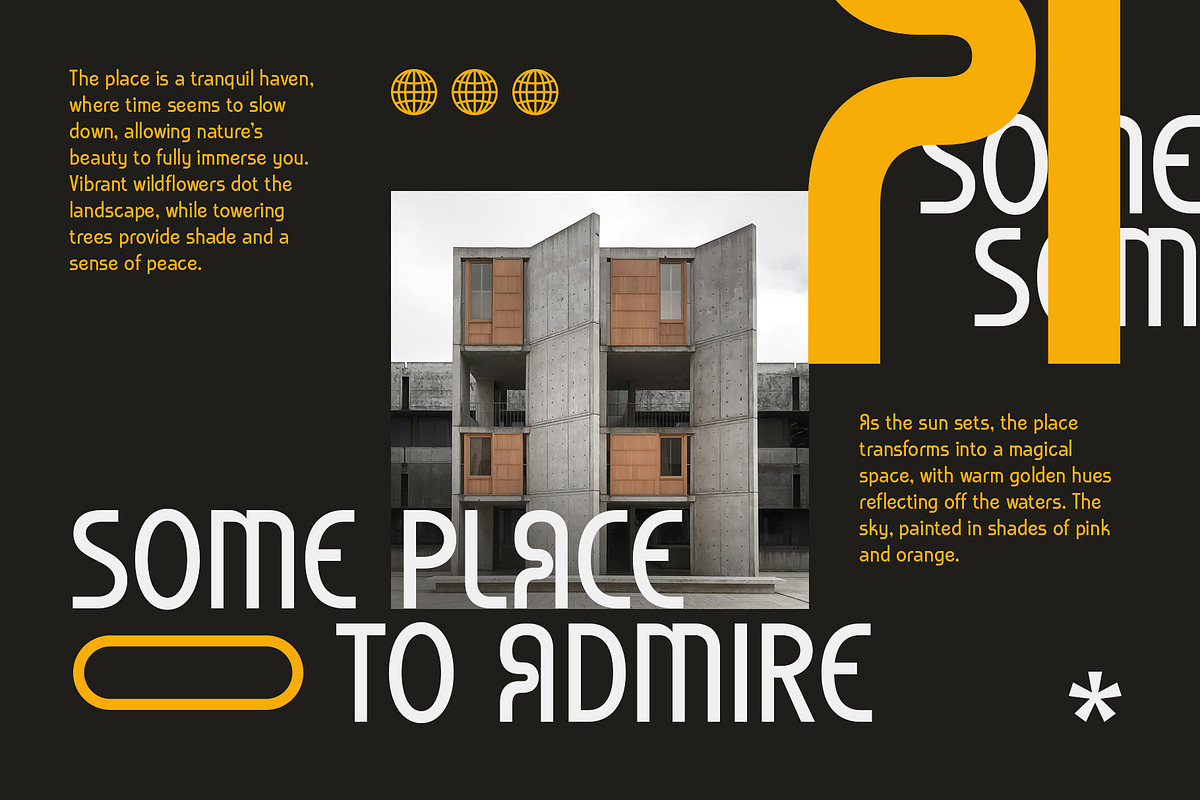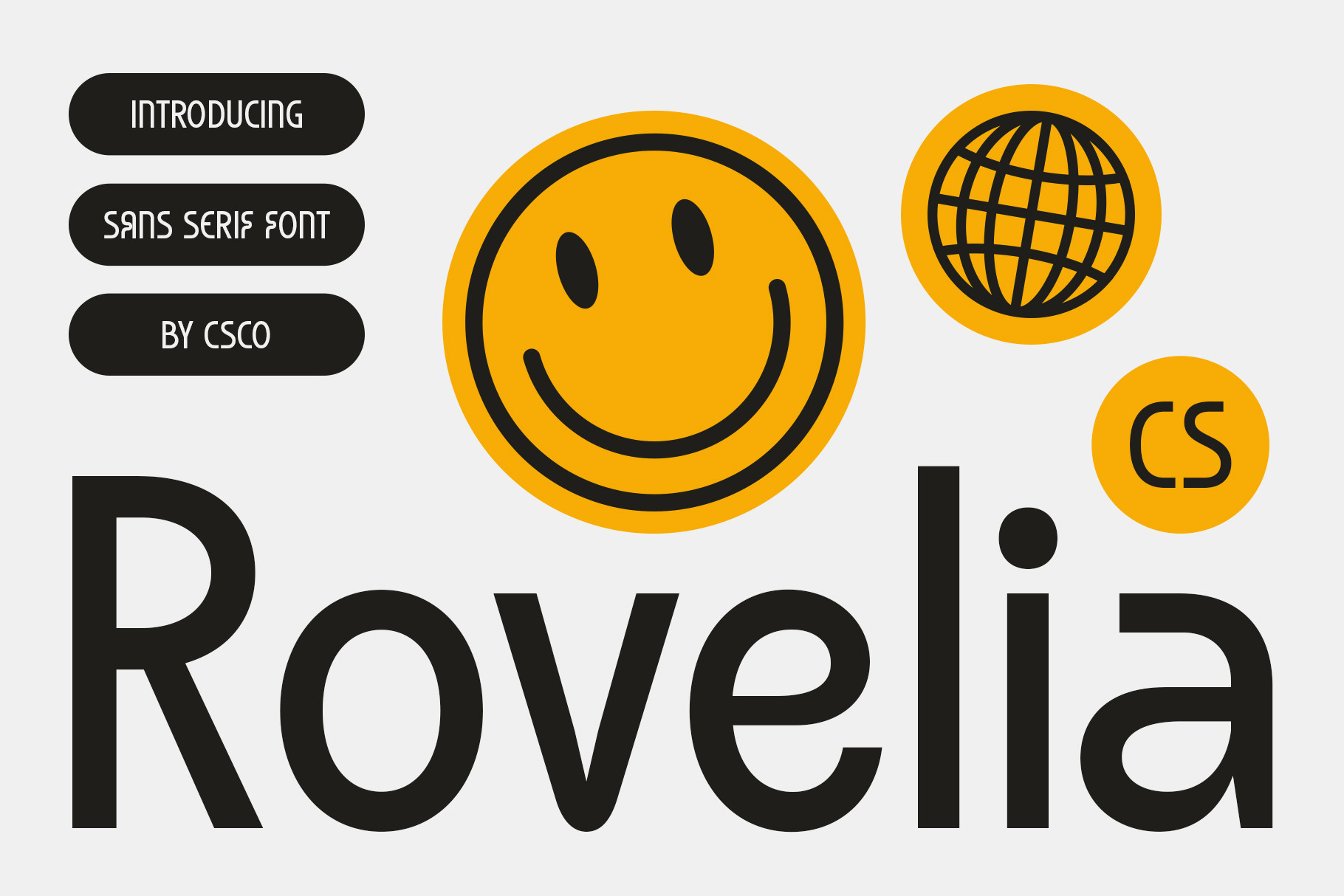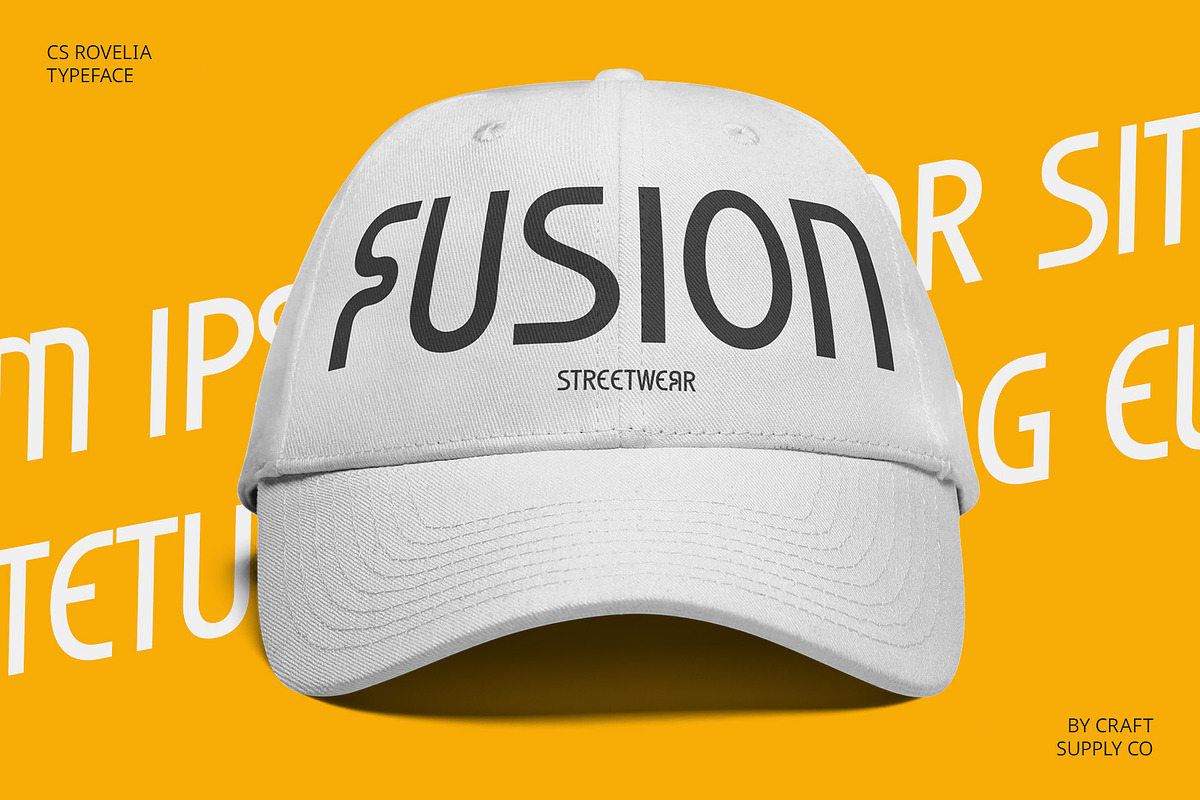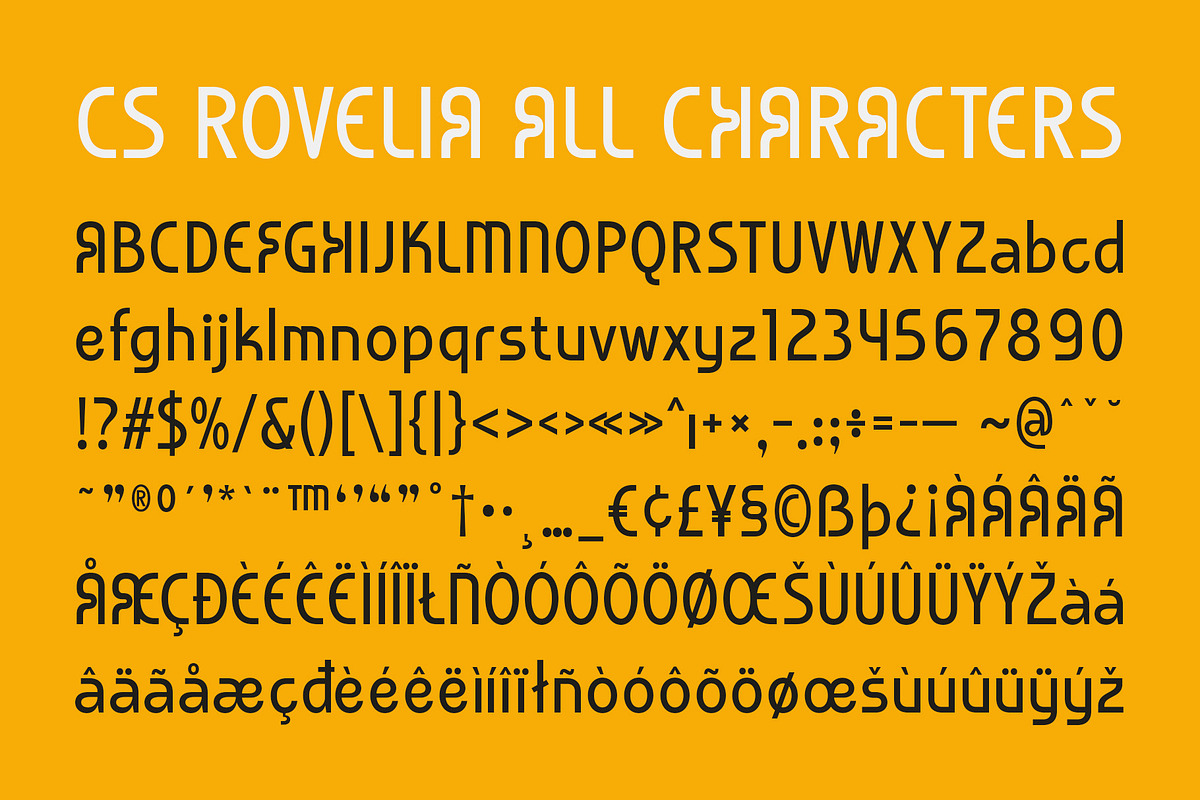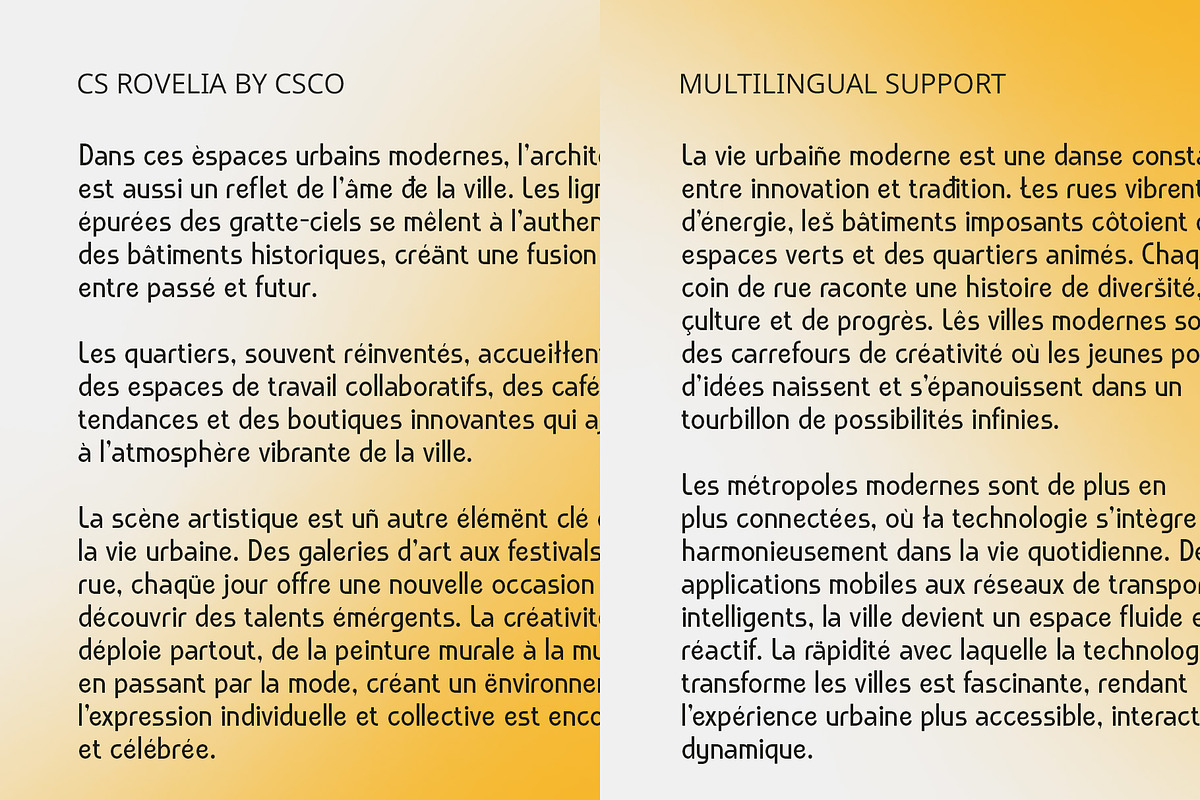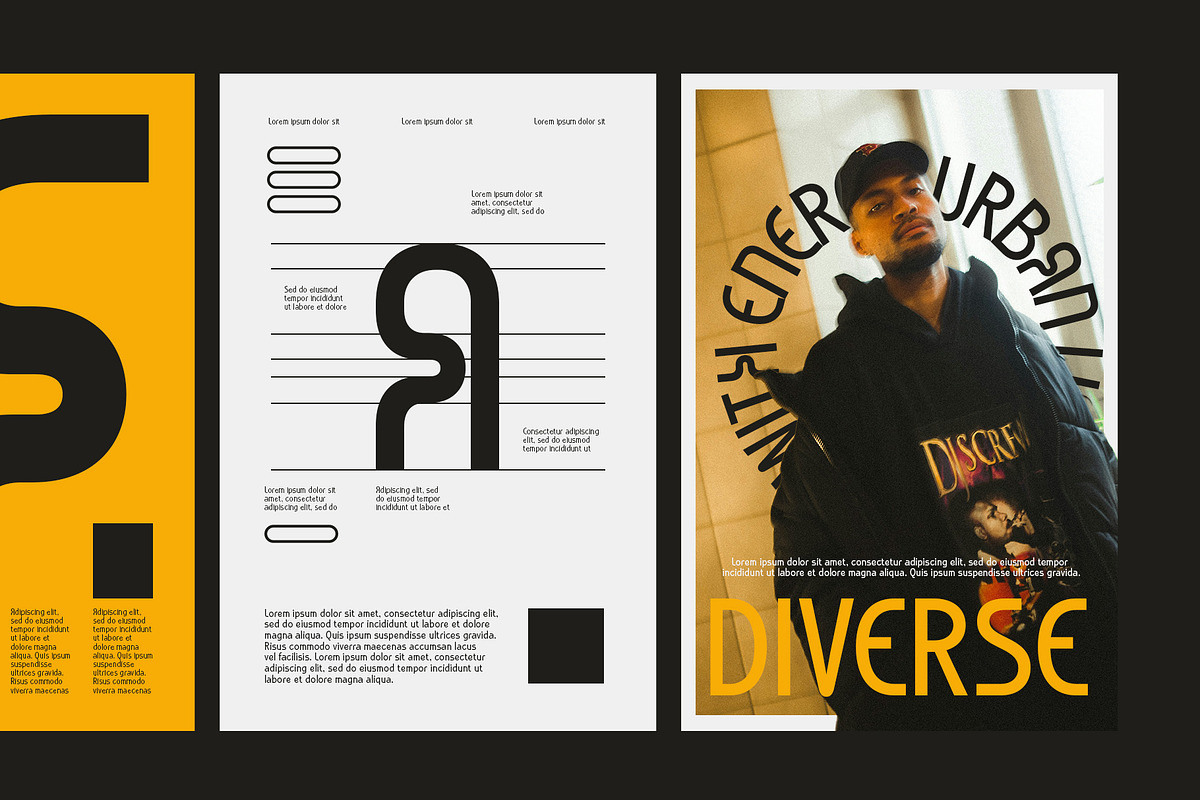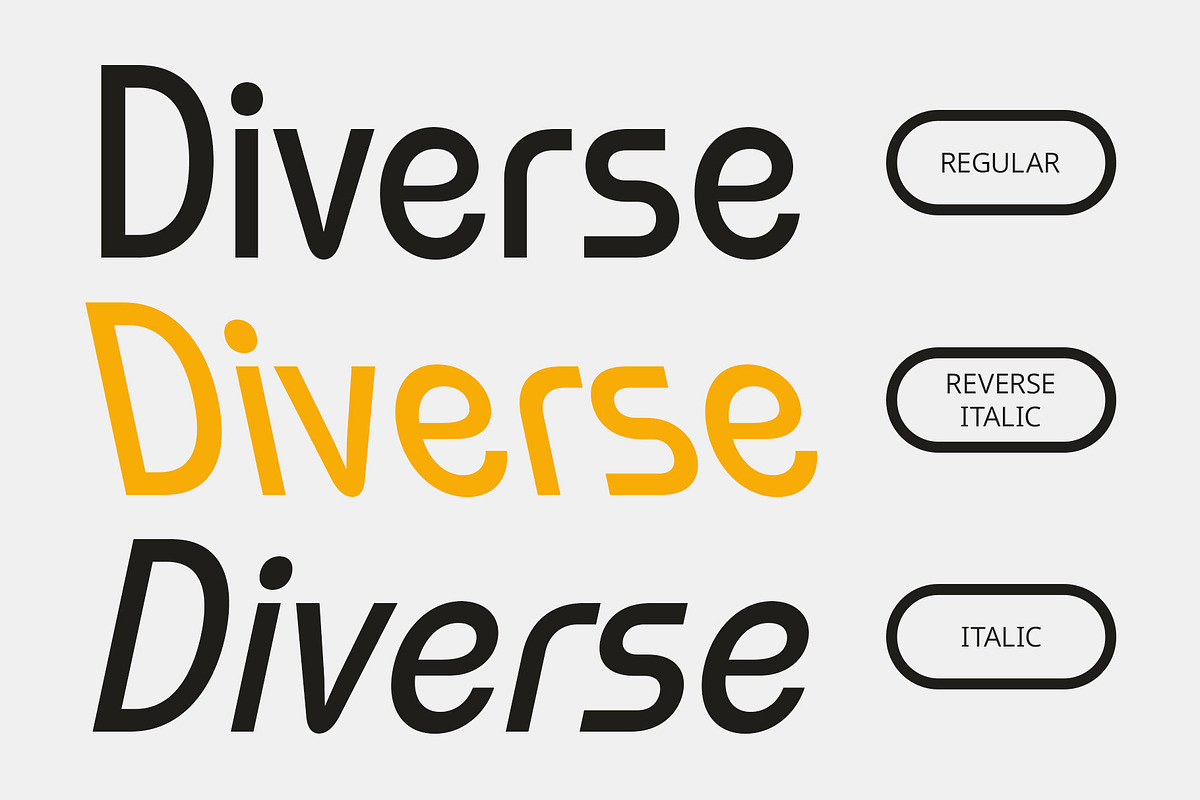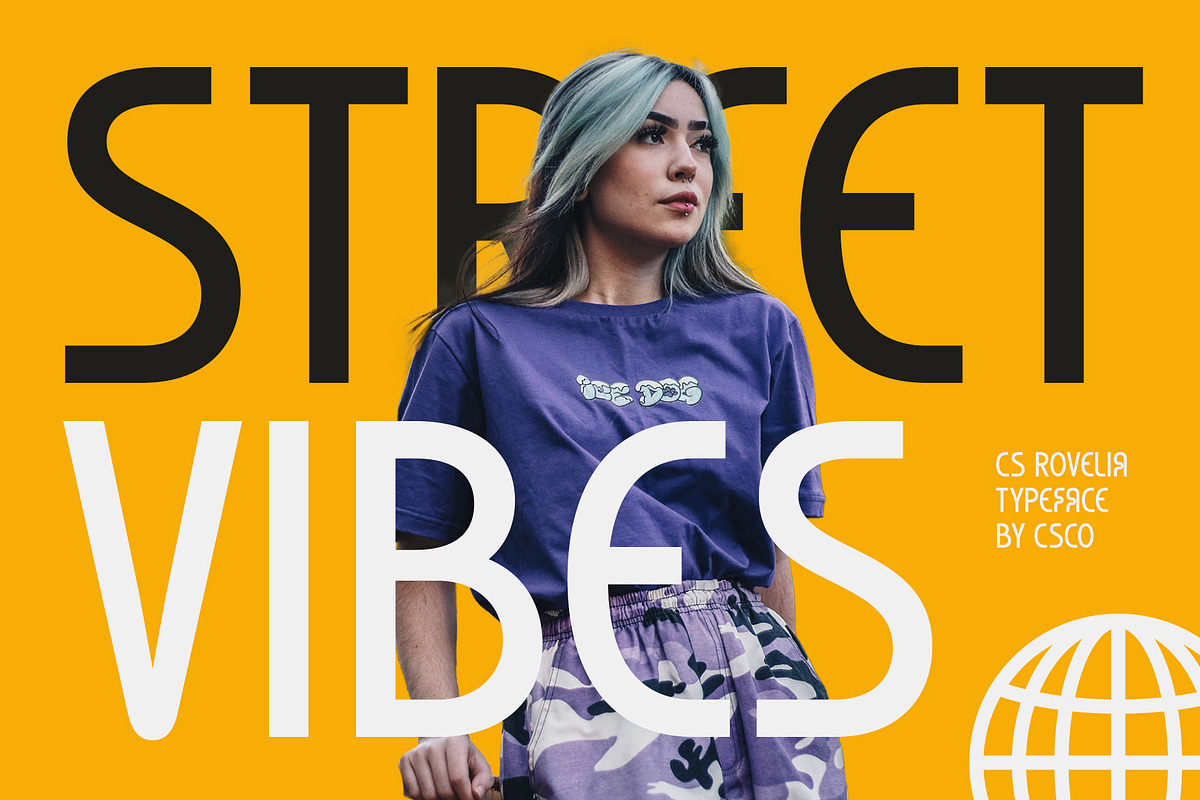
CS Rovelia – Modern Font
CS Rovelia – Modern Funky Display Font
Bold, Playful, and Full of Energy CS Rovelia is a modern sans-serif display font that blends bold, expressive elements with a dynamic, free-spirited design. Featuring thick lines, lively curves, and unique shapes, this font stands out for its unconventional, attention-grabbing character. The clean, contemporary sans-serif foundation is playfully enhanced by vibrant and experimental details, making this font a true reflection of modern creativity and youthful energy.
A Fun and Creative Personality The distinctive, funky design of CS Rovelia brings a fun and energetic vibe to any project. Its irregular shapes and dynamic forms convey a sense of excitement and joy, making it perfect for designs that want to break free from the conventional. Whether it’s thick curves or quirky letterforms, every detail in this font communicates a sense of playfulness and boldness, offering a refreshing departure from more traditional typefaces.
Perfect for Youthful, Bold Designs Ideal for projects that seek to highlight creativity and individuality, CS Rovelia shines in music posters, advertising campaigns, event promotions, and anything targeting a youthful, energetic audience. Its vibrant personality makes it the perfect choice for designs that want to capture attention and stand out from the crowd. From energetic street style to fresh, modern branding, this font delivers a strong, fun, and unforgettable impression.